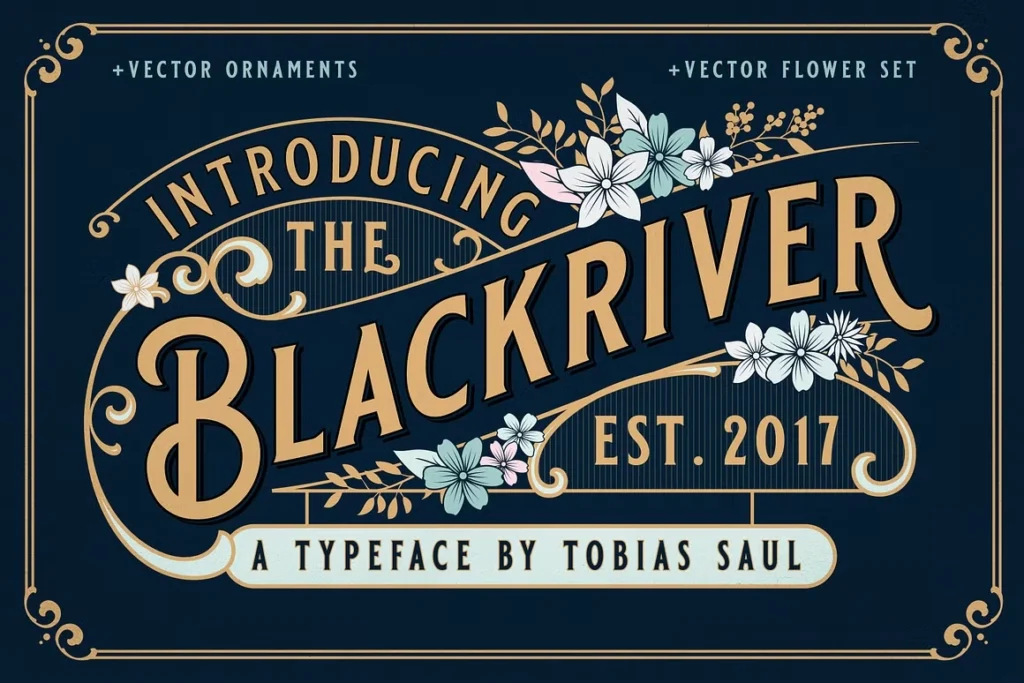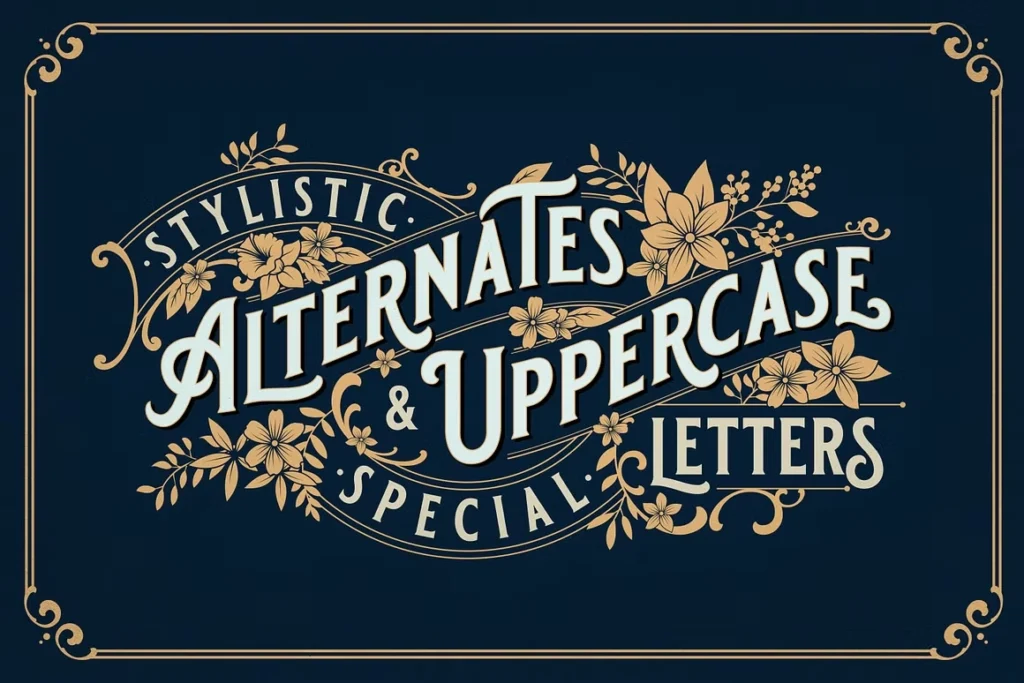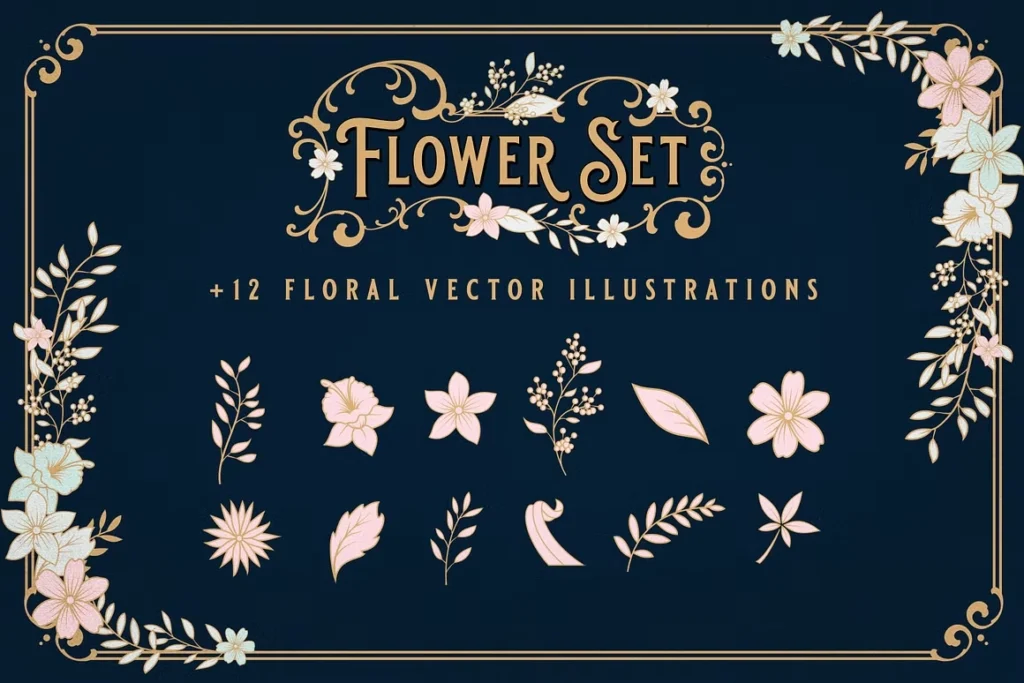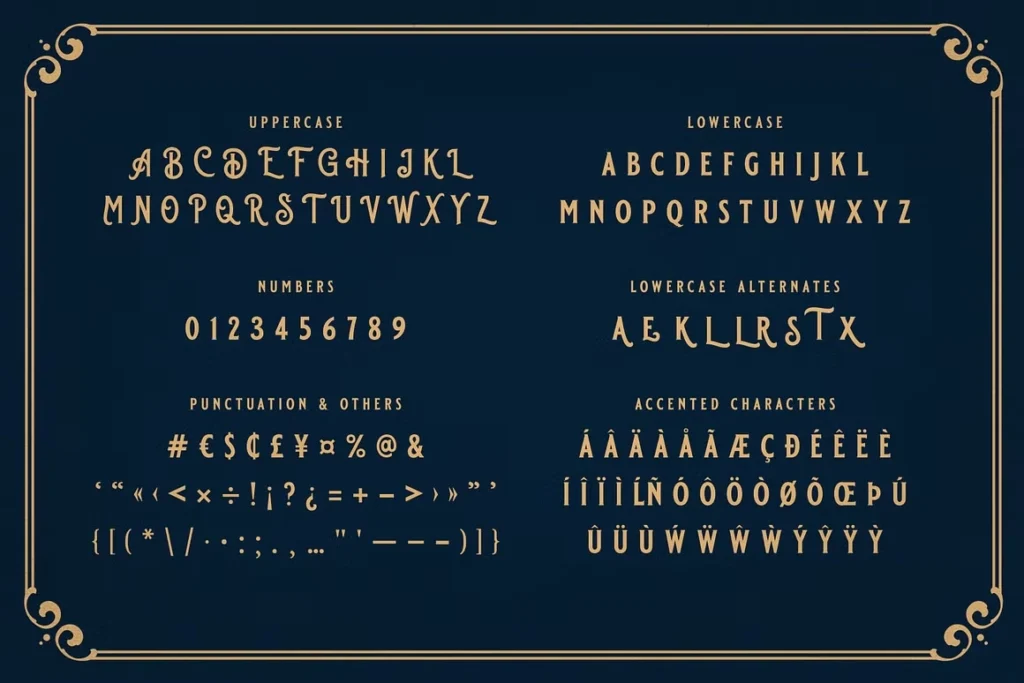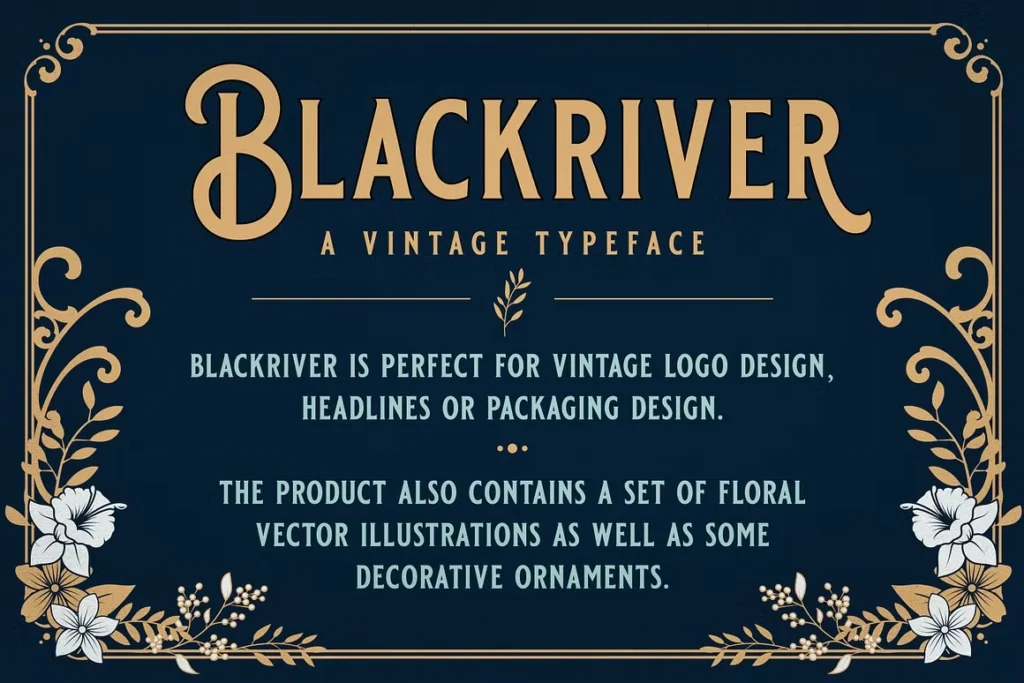
About Black River Font
I recently stumbled upon the Black River Font while searching for something special for a client’s vintage-inspired brand. As a typographer and graphic designer with 8+ years in the field, I’m always hunting for fonts with character and versatility. When this font caught my eye, I knew it would be perfect for the craft brewery rebrand I was working on. I’ve since used it for three more projects, including a coffee shop logo and a wedding invitation suite. The results have been jaw-dropping, with clients absolutely loving the unique vintage vibe it brings.
Black River Font is a stunning vintage-inspired typeface created by Heritage Type Co., a design studio known for crafting authentic period fonts with modern usability. This display font captures the essence of early 20th century packaging and advertising aesthetics while maintaining crisp readability. What makes Black River truly special is its thoughtful design approach – each glyph feels like it was plucked from an antique shop sign or century-old product label.
The font comes in three distinct styles: Regular, Round, and Rough, giving designers flexibility for different applications. The Regular style provides clean lines perfect for primary text, while Round offers a softer approach and Rough adds texture for that authentic worn, vintage feel. Heritage Type Co. has clearly poured their expertise into creating a typeface that balances historical accuracy with contemporary design needs, making it an excellent choice for projects requiring both character and functionality.
Features of Black River Font
Black River Display Font offers an impressive array of features that make it stand out in the crowded vintage font marketplace. The typeface includes a complete character set A-Z with special uppercase letters that immediately catch the eye. What truly elevates this font is its extensive collection of stylistic alternates that allow for customization and personality in your text.
The OpenType features are particularly impressive, with numerals and punctuation designed to match the vintage aesthetic perfectly. For international projects, the font includes accented characters covering Western European languages. The real game-changer is the bonus content – 12 floral vector illustrations and 12 Victorian vector swashes/ornaments in multiple formats (AI, EPS, PDF, afdesign, PNG) that complement the font beautifully. These decorative elements save hours of design time when creating vintage-inspired logos or packaging.
The technical aspects are equally solid. Available in both OTF and TTF formats, Black River works seamlessly with advanced graphic software like Adobe Illustrator, InDesign, and Photoshop. The attention to detail in each glyph is remarkable – from the subtle serifs to the balanced weight distribution that makes this font highly readable even at smaller sizes. This combination of technical excellence and design flair makes Black River a workhorse for professional design projects.
Black River Font shines brightest in vintage logo design projects where its bold, distinctive character can create instant brand recognition. I’ve found it particularly effective for businesses wanting to convey heritage, craftsmanship, or nostalgic appeal – think craft breweries, coffee shops, barbershops, and artisanal food brands.
The font works wonderfully for packaging design, creating eye-catching labels that stand out on store shelves. Its display characteristics make it perfect for headlines and titles in print materials like posters, menus, and event invitations where you want text to make a strong visual impact. The included Victorian ornaments and floral vectors let you create complete design systems with consistent styling across all touchpoints.
Digital applications work too – use Black River for website headers, social media graphics, or app interfaces that need vintage flair. The font’s readability ensures it functions well across platforms, though it’s best used as display text rather than body copy. For branding projects, the different styles (Regular, Round, Rough) provide flexibility within a cohesive visual language. When paired with more minimal sans-serif fonts for body text, Black River creates a beautiful contrast that feels both timeless and modern.